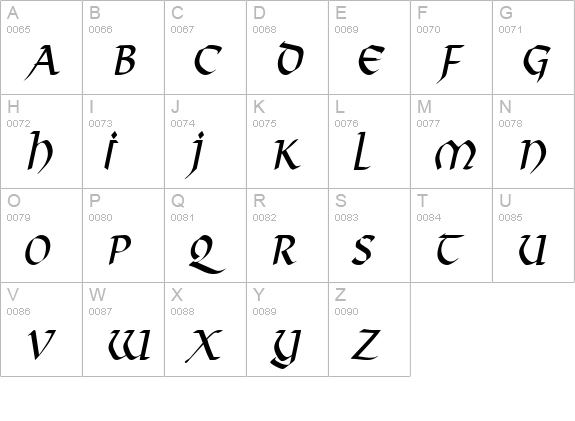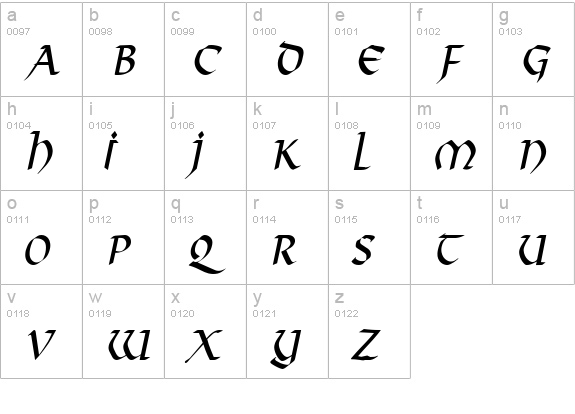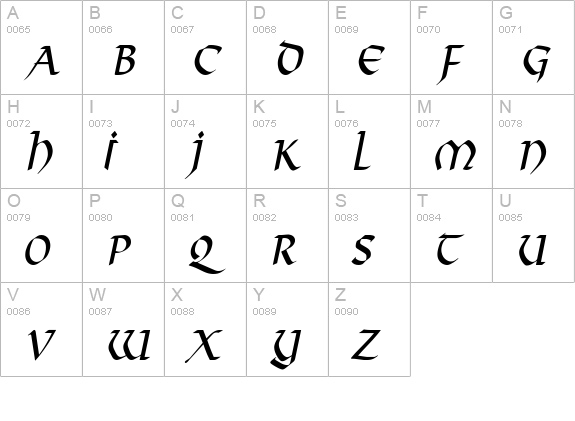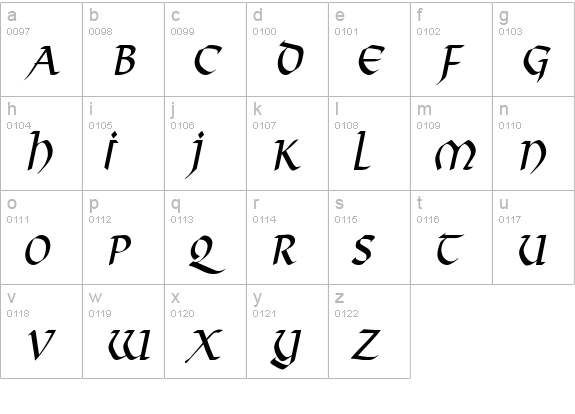
Valhalla Condensed Italic is a distinctive, condensed-width, italic variant in the Valhalla typeface family \xE2\x80\x94 well suited to design and typography projects.
Valhalla Condensed Italic font is a stunning and versatile typeface that effortlessly combines elegance with a touch of modernity. Its sleek and streamlined design captures attention and adds a sense of sophistication to any project. With its unique italic style, Valhalla Condensed Italic font brings a sense of dynamic energy to your design work. Whether used for headlines, logos, or body text, this font adds a stylish flair that is sure to make a lasting impression. But what sets Valhalla Condensed Italic font apart is that it is not only visually pleasing, but also freely available to download. FontsMarket.com, a trusted source for high-quality fonts, offers this font for free, allowing designers and creatives to easily access and utilize this remarkable typeface. The versatility of Valhalla Condensed Italic font is truly remarkable. Its condensed style makes it ideal for projects with limited space, while its italicized form adds a touch of personality and flair. Whether used in print or digital media, this font shines in both large and small sizes, ensuring legibility and impact. Valhalla Condensed Italic font is a true gem in the world of typography. Its sleek and modern design, combined with its availability as a free download, makes it an invaluable resource for designers and creatives. With this font in your collection, you have the freedom to create stunning designs that leave a lasting impression. Don't miss out on this opportunity to enhance your projects with the elegance and versatility of Valhalla Condensed Italic font, available for free at FontsMarket.com.